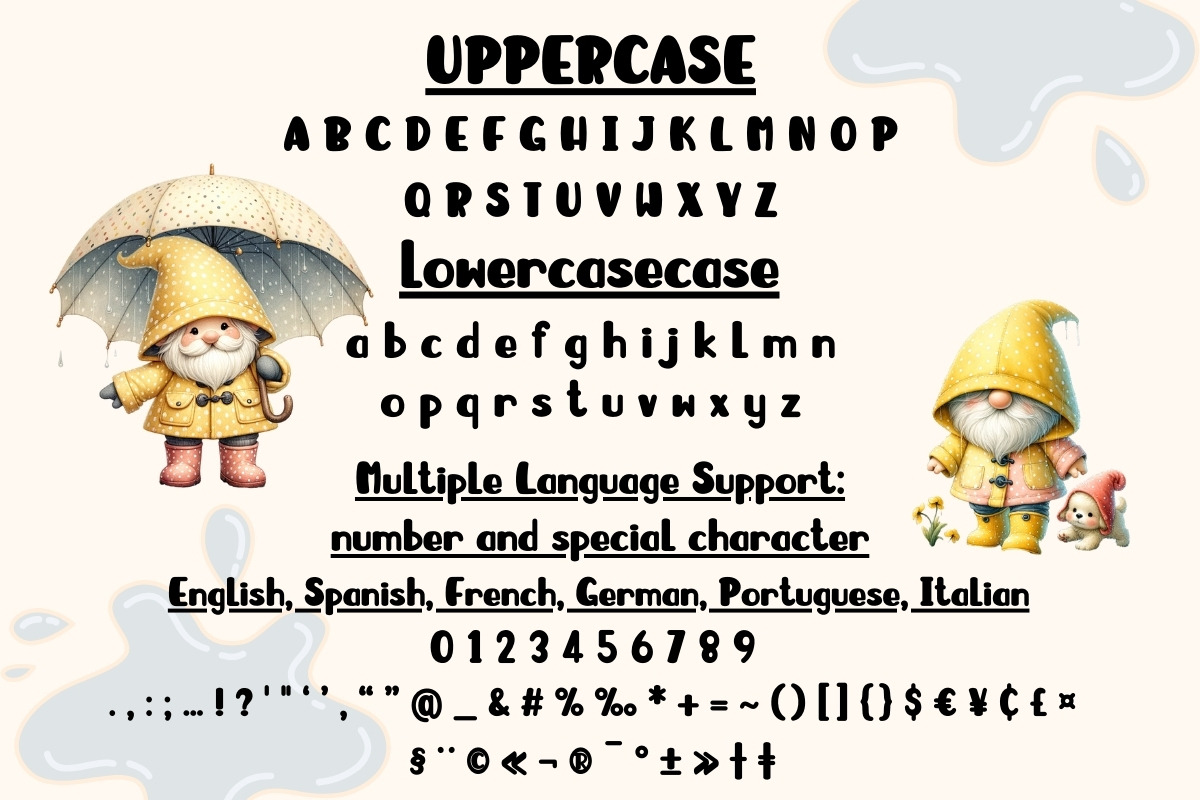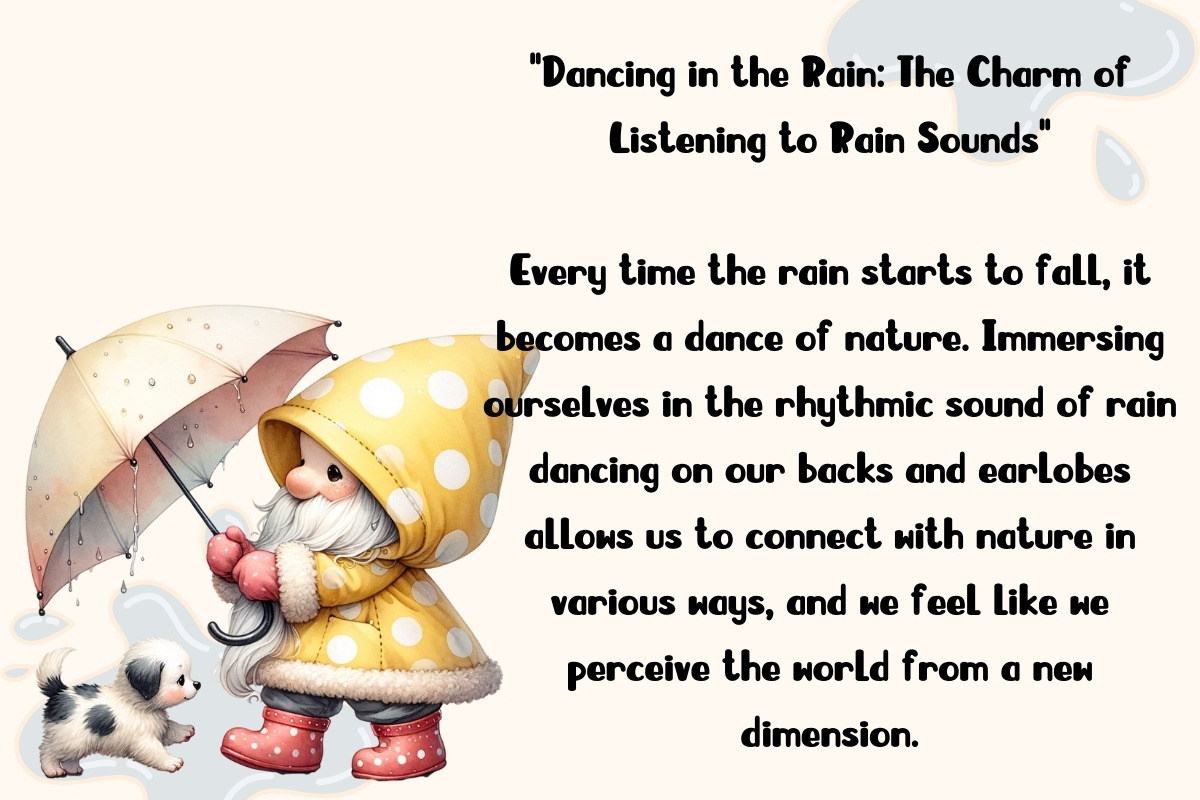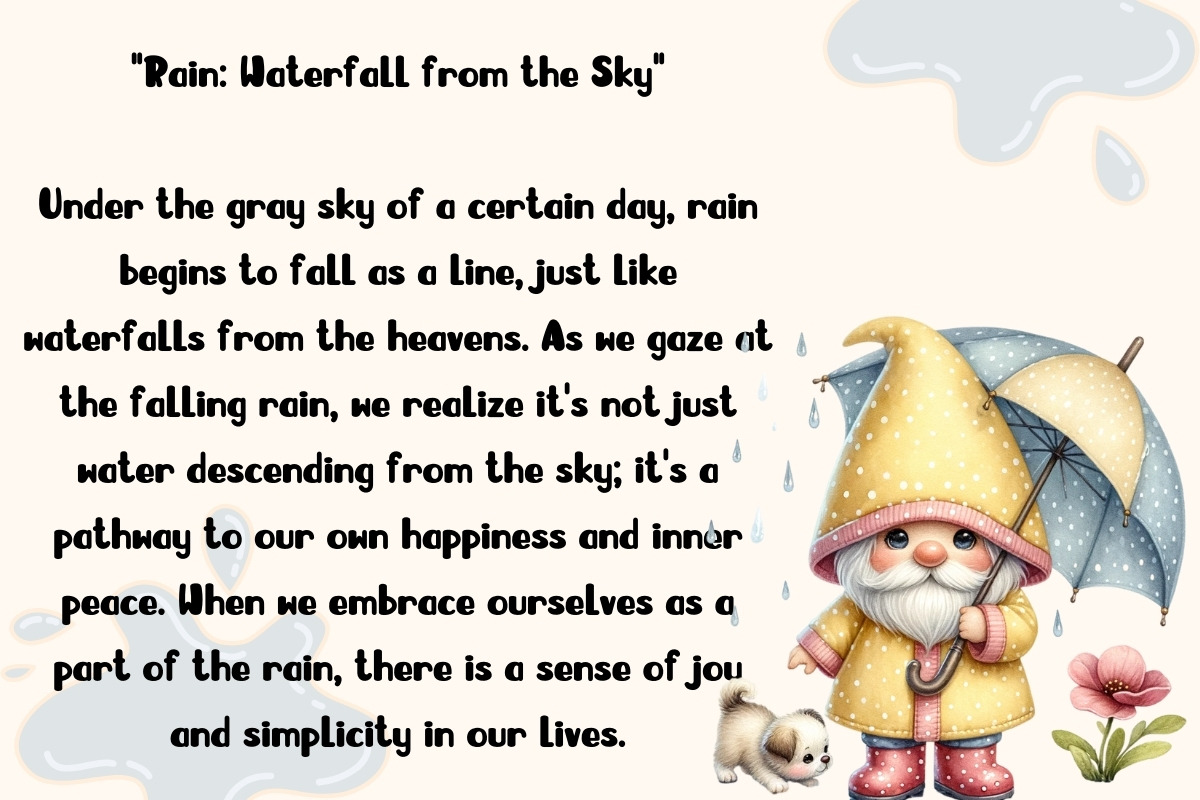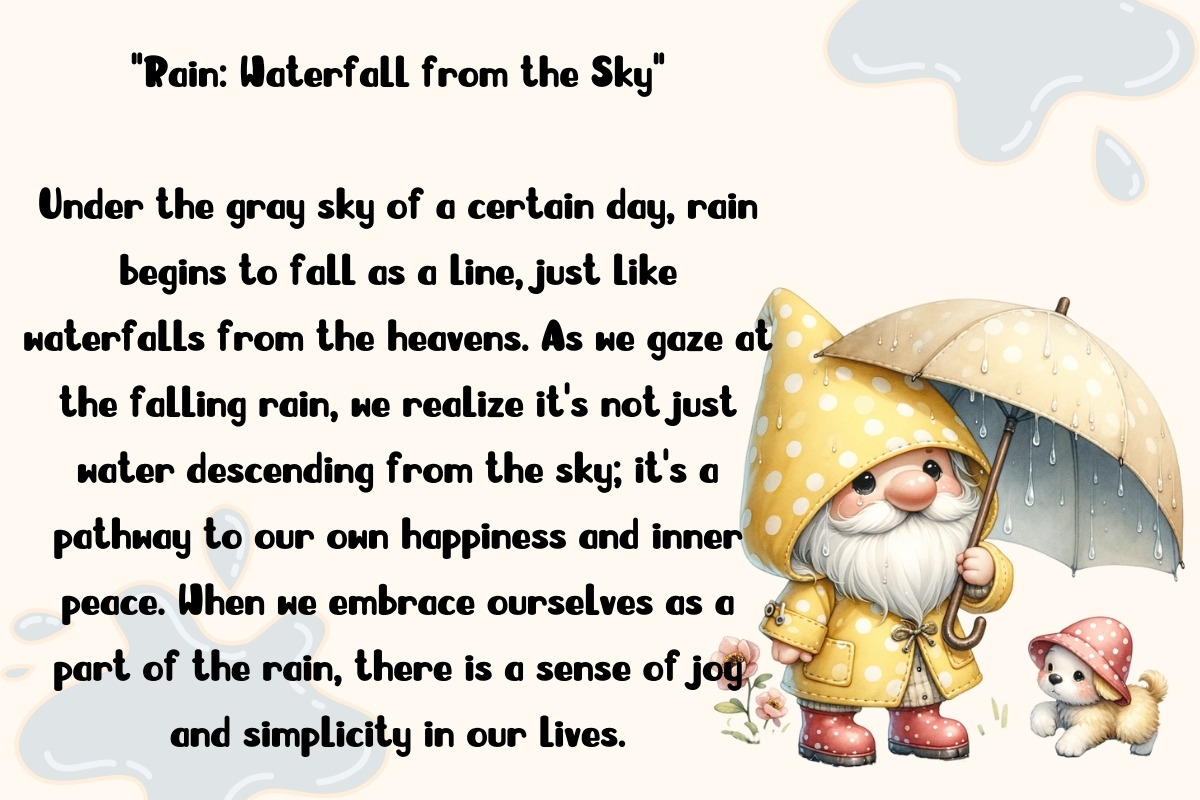
RAIN DANCE - Handwritten
Embrace Whimsy and Elegance: Introducing "RAIN DANCE," the enchanting handwritten font that effortlessly blends whimsy and elegance. Perfect for adding a touch of charm to your creative projects.
Playful Yet Sophisticated: With its playful strokes and graceful curves, "RAIN DANCE" strikes the perfect balance between a cute and sophisticated handwritten font. It's the ideal choice for those who want to infuse a dash of personality into their designs.